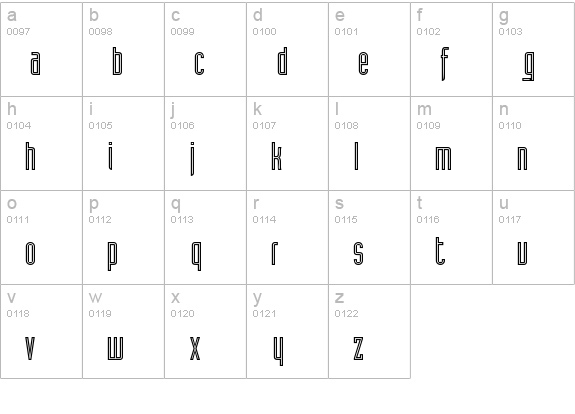
AssemblyOutlineAlternateSSK Font Details
AssemblyOutlineAlternateSSK font is a unique and modern typeface that is perfect for adding a contemporary touch to your designs. This font features a stylish outline design that is both eye-catching and versatile. It is ideal for a wide range of projects, from branding to posters to social media graphics. The AssemblyOutlineAlternateSSK font is available for free download at FontsMarket.com, making it easily accessible to anyone looking to enhance their creative projects with a fresh and distinctive font. With its clean lines and bold style, this font is sure to make a statement and capture the attention of your audience. Whether you're a designer looking for a new font to add to your collection or a business owner in need of a font that stands out, AssemblyOutlineAlternateSSK is a fantastic choice. Download it today and start incorporating this modern and stylish font into your projects to create a lasting impression.